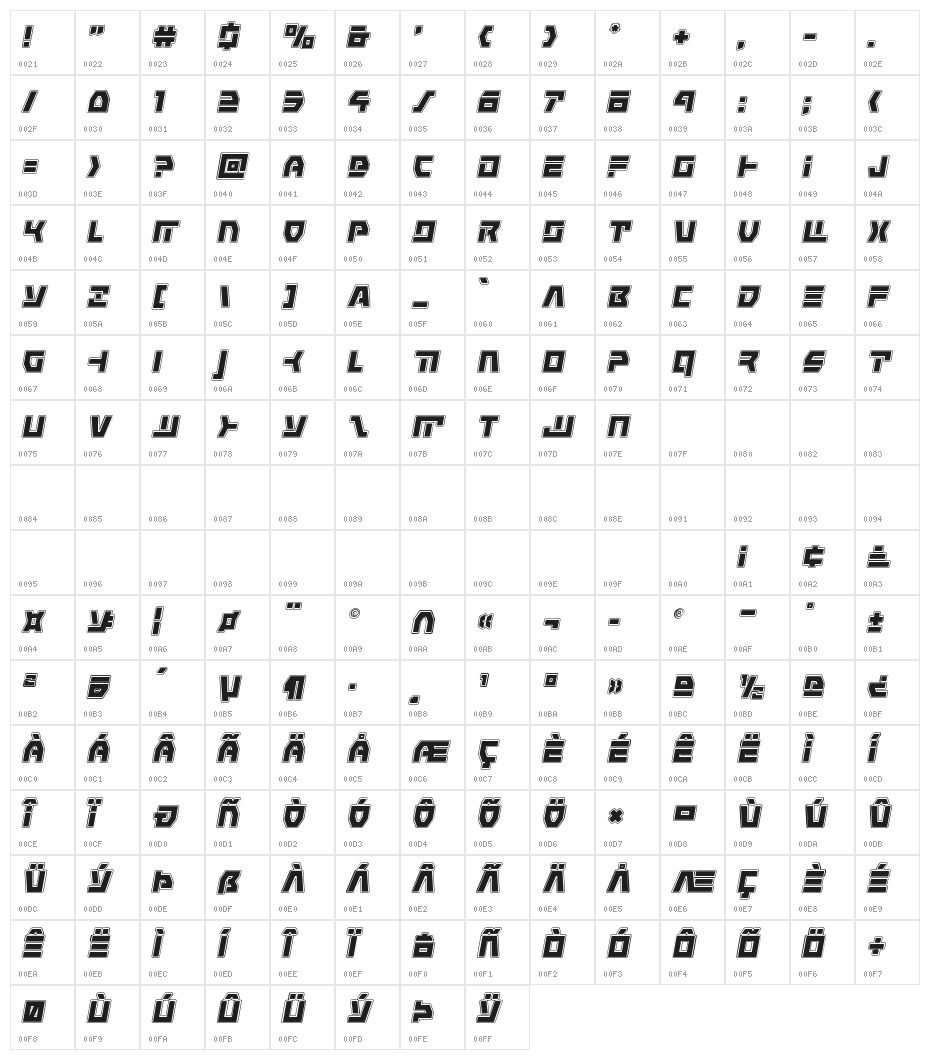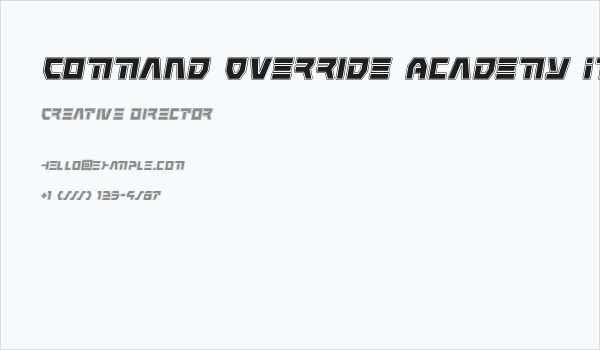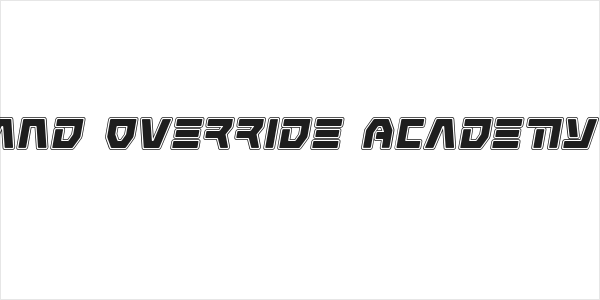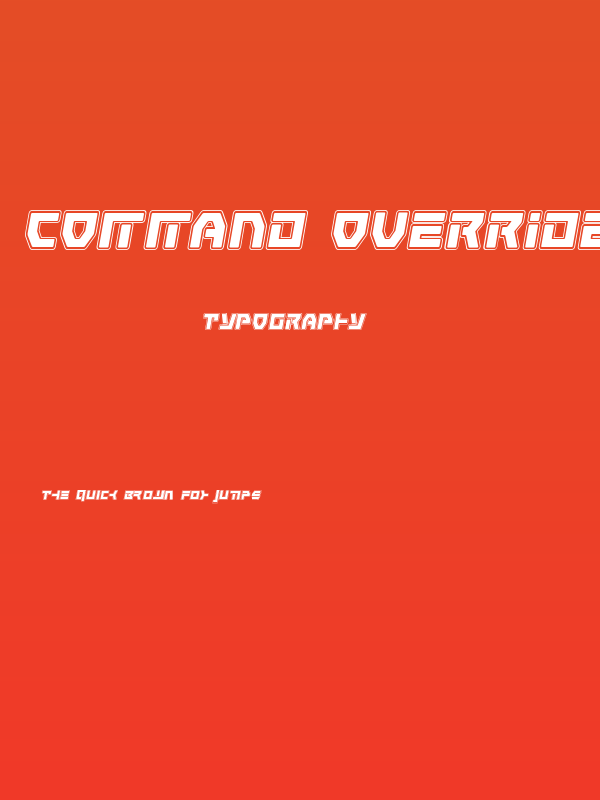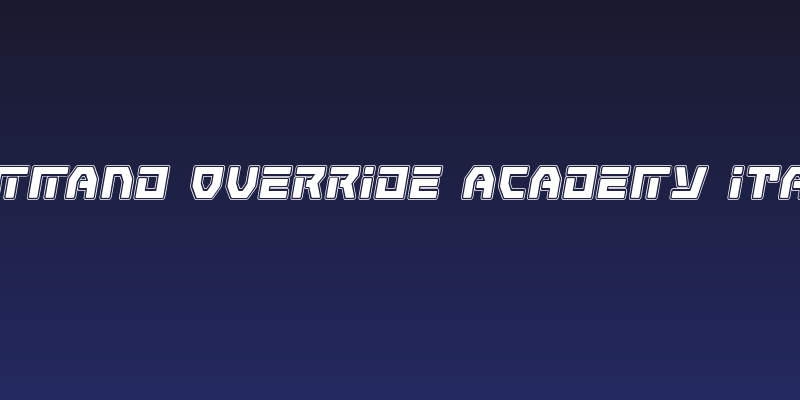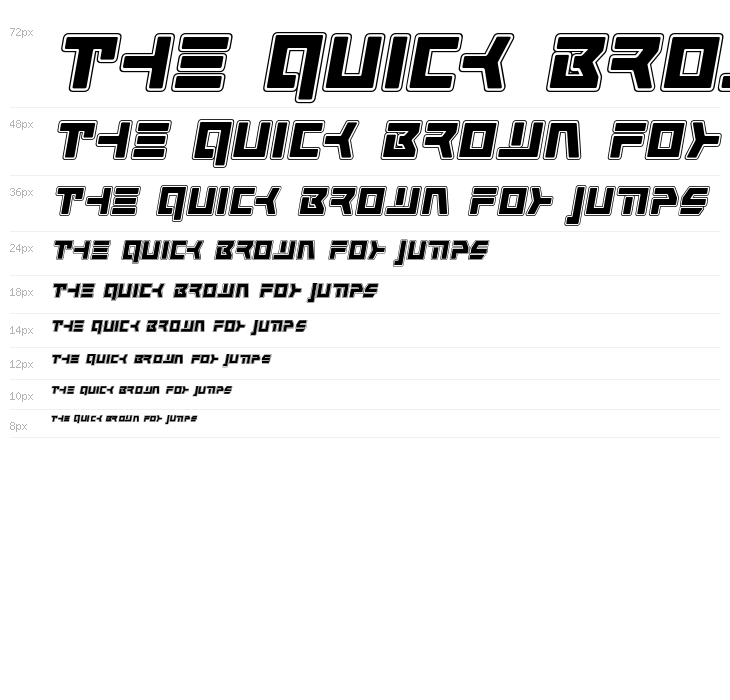
Command Override Academy Italic Font
Command Override Academy Italic Description
This font features a bold, futuristic design with a strong geometric influence. The characters are outlined, creating a striking contrast between the thick, solid strokes and the negative space within each letter. The angular shapes and sharp edges give it a modern, tech-inspired appearance, while the italic slant adds a sense of motion and dynamism. The uppercase and lowercase letters maintain a consistent style, with the numerals and special characters following suit. This font is ideal for projects that require a bold, eye-catching typeface with a contemporary edge.
| Proposed Projects | Ideal for tech branding, sci-fi posters, video game titles, and modern advertisements. |